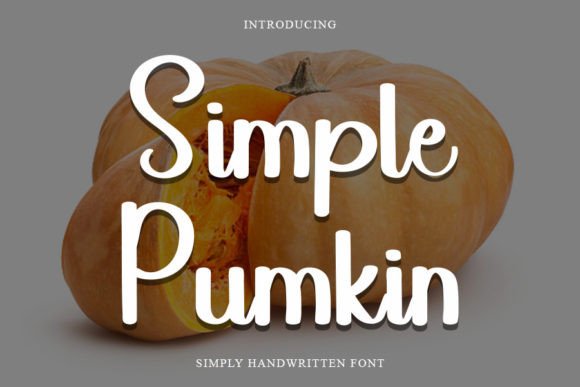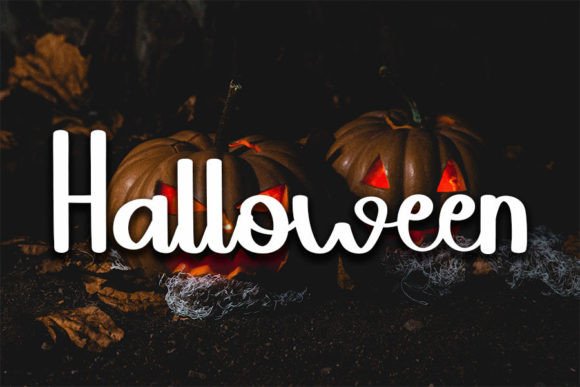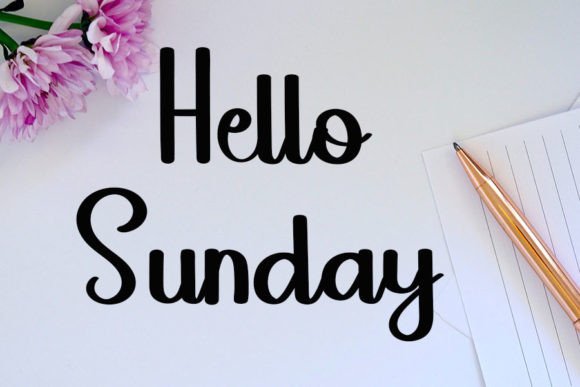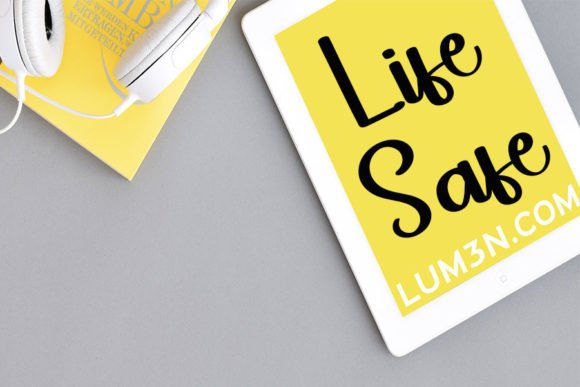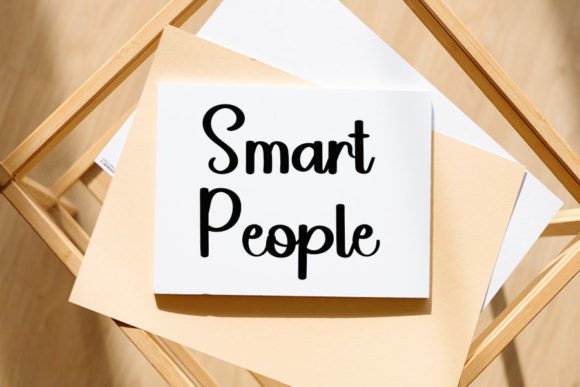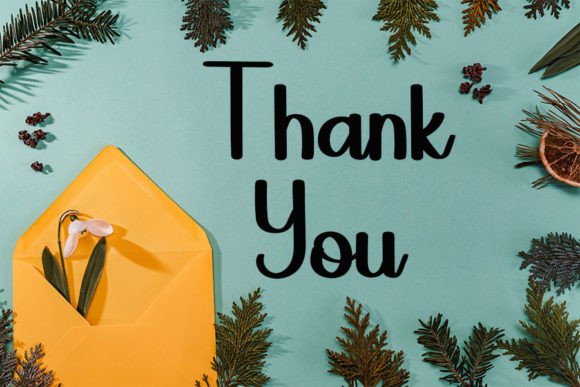
Simple Pumkin Font
Add Creative Charm with Simple Pumkin Handwritten Font
The Simple Pumkin Handwritten Font is a delightful blend of elegance and playfulness. Designed with a clean yet quirky style, this font adds personality and charm to all types of creative projects. Whether you’re designing for your business, a seasonal campaign, or a fun DIY craft, Simple Pumkin delivers the perfect handwritten look.
Crafted with care and intention, this font brings a touch of whimsy without sacrificing legibility or style.
Ideal for Logos, Branding, and Creative Content
Simple Pumkin is incredibly versatile, making it an excellent choice for a wide range of uses. It shines in logo design, where it adds a handcrafted and approachable feel to brand identities. It also works well for branding materials, social media content, and product packaging, giving your work a consistent and creative voice.
Moreover, this font is perfect for seasonal campaigns, especially fall-themed projects, holiday cards, and cozy blog headers. It offers just the right amount of quirkiness to keep things fresh and fun.
Clean Lines with a Quirky Edge
One of the most appealing features of the Simple Pumkin Font is its balance between clean structure and playful energy. The characters are well-formed and evenly spaced, providing excellent readability. At the same time, the font includes subtle irregularities that make it feel truly handmade and unique.
Because of this charming character, the font works well in both short phrases and longer text blocks. Use it for titles, quotes, or even paragraphs where you want your message to feel warm and personal.
Great for Print and Digital Designs
Whether your project is digital or physical, Simple Pumkin fits seamlessly into any format. Use it in print materials such as invitations, T-shirts, labels, and flyers, or apply it to digital projects like Instagram posts, Pinterest graphics, email headers, and Etsy product images.
To elevate your design, pair Simple Pumkin with a contrasting sans-serif font. This will help establish visual hierarchy and draw attention to your most important content.
Why Choose Simple Pumkin Handwritten Font?
Designers love Simple Pumkin for its:
• Elegant yet playful handwritten style
• High legibility across sizes and formats
• Ideal fit for logos, branding, crafts, and seasonal work
• Beautiful performance in both print and digital mediums
Add Whimsy and Elegance to Every Design
In summary, the Simple Pumkin Handwritten Font is your go-to typeface for projects that require both sophistication and fun. With its clean form and subtle character, it’s perfect for adding a heartfelt touch to logos, social media, branding, and more.
If you’re seeking a handwritten font that’s both stylish and friendly, Simple Pumkin is the perfect choice to elevate your creative ideas.